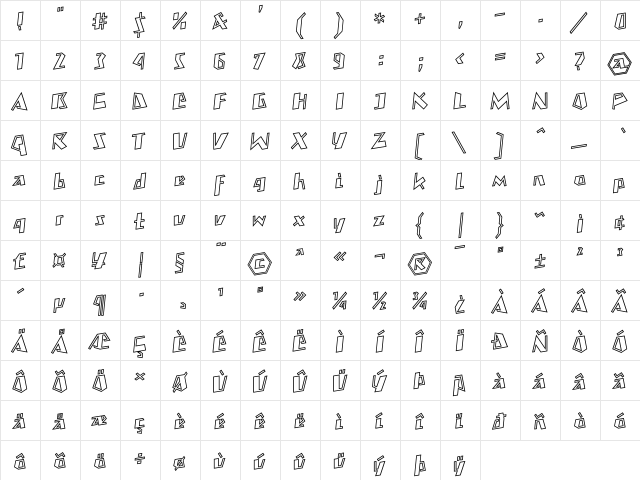
MateoOutlineBoldLL Regular Font Preview
MateoOutlineBoldLL Regular
Design Context for MateoOutlineBoldLL Typeface
MateoOutlineBoldLL brings ornamental detail and strong personality to headlines and identities, where visual impact matters more than quiet functionality. The heavy weight commands attention and anchors typographic hierarchies.
Font Pairing: Pair with a clean neutral sans-serif for body copy to let MateoOutlineBoldLL's character lead without overwhelming the composition.
Pro Tip: Use MateoOutlineBoldLL exclusively at display sizes — it was designed to be seen, not read at length. Let a neutral companion handle body copy.